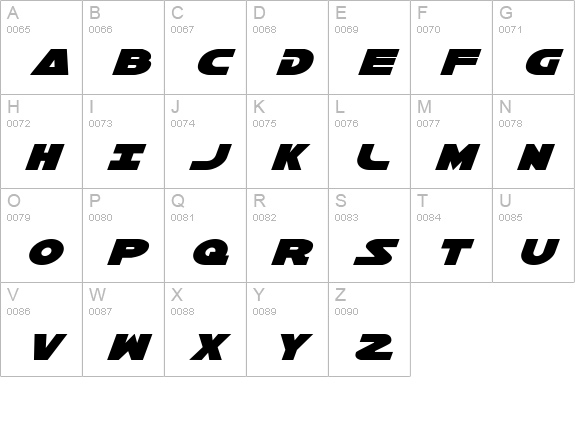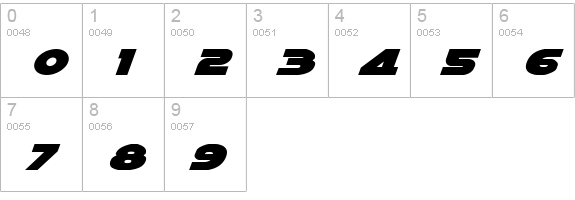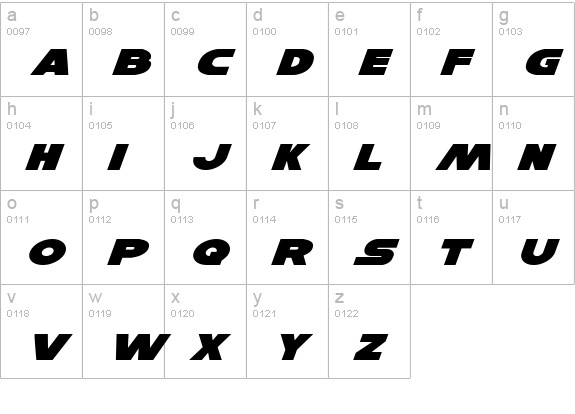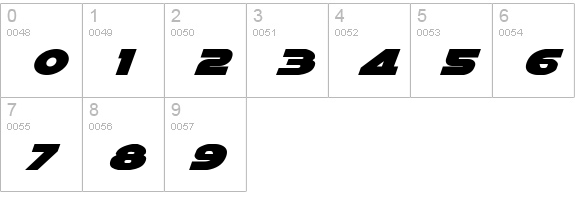
Han Solo Expanded Italic Font Details
Han Solo Expanded Italic is a distinctive, extended-width, italic variant in the Han typeface family \xE2\x80\x94 well suited to design and typography projects.
Introducing Han Solo Expanded Italic font, a bold and charismatic typeface that captures the essence of the legendary Han Solo himself. With its sleek and edgy design, this font is perfect for adding a touch of rebelliousness and adventure to your creative projects. Han Solo Expanded Italic font is freely available to download at FontsMarket.com, allowing you to unleash your creativity without any cost. Whether you're designing a movie poster, creating a logo, or crafting a unique branding identity, this font will bring a sense of excitement and boldness to your work. The italicized strokes of Han Solo Expanded Italic font add a dynamic and energetic flair, resembling the bold and daring spirit of the famous Star Wars character. Its expanded width gives this font a commanding presence, making it ideal for headlines, titles, and attention-grabbing typography. With its seamless legibility and versatile nature, Han Solo Expanded Italic font can be used across various design projects, from print to digital media. Its unique style ensures that your message stands out, captivating your audience and leaving a lasting impression. Whether you're a graphic designer, a marketer, or simply a Star Wars enthusiast, Han Solo Expanded Italic font is a must-have in your font collection. It embodies the spirit of adventure, rebellion, and charisma, bringing a sense of excitement to every design project you undertake. Download Han Solo Expanded Italic font for free at FontsMarket.com and unleash the power of this bold and captivating typeface. Let your creativity soar as you boldly embrace the iconic Han Solo's legacy in your designs, and make a statement that is truly out of this world.